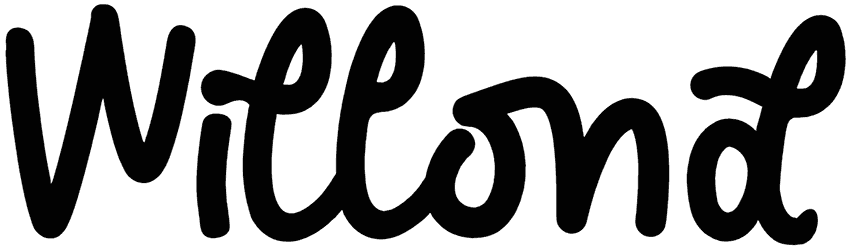
Willond Font
Willond is a really fun and insanely trendy script font that comes with soft kerning and looks totally matched with a huge set of creative ideas such as social media posts, storybook illustrations, greeting cards, animat…
Willond is a really fun and insanely trendy script font that comes with soft kerning and looks totally matched with a huge set of creative ideas such as social media posts, storybook illustrations, greeting cards, animation posters, or flyers. The flattering point about this artwork is that it carries a feeling of delicacy, vitality, drama, or jauntiness.